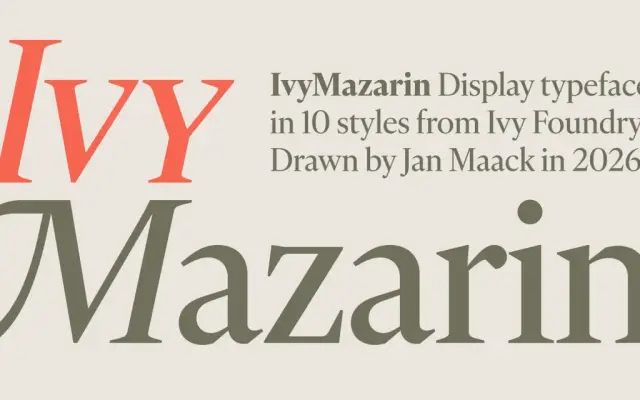
IvyMazarin
Ivy Foundry · Jan Maack · 2026
A 2026 revival of Robert Girard's 1921 Astrée, later issued as Mazarin by Stephenson Blake, drawing on rare archival specimens to reconstruct a French Garamond interpretation with cool crispness and a confident 12° italic slant.
Jan Maack worked from rare archival specimens to revive Astrée/Mazarin, refining proportions, raising the x-height and moderating ascenders while retaining the cool sharpness of the original italics. Historical quirks are preserved as OpenType features: a long-legged R, alternate Q, swashes, discretionary ligatures and small caps. Five weights with matching italics and variable fonts make it well suited to branding, editorial design and book typography.
A revival of a 1920s French interpretation of Garamond, placing it firmly in the old-style serif tradition with humanist roots and classical proportions refined for contemporary use.